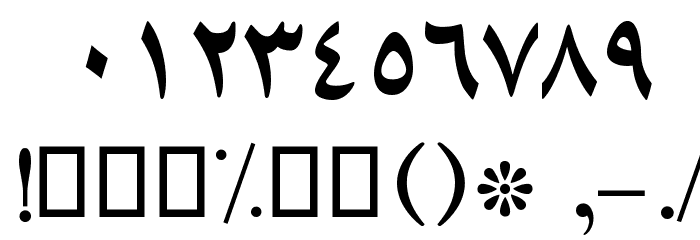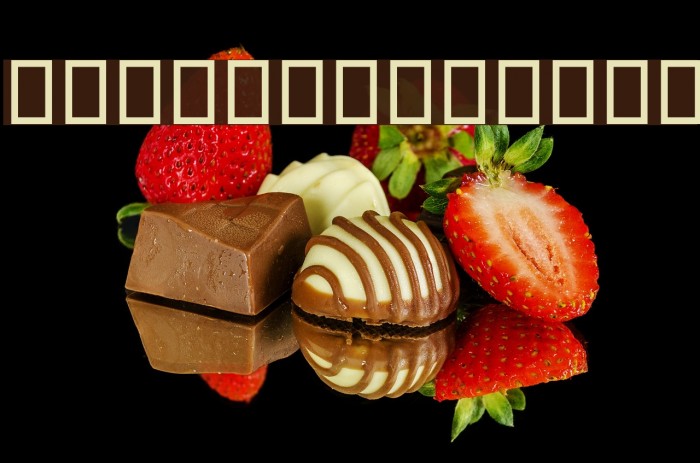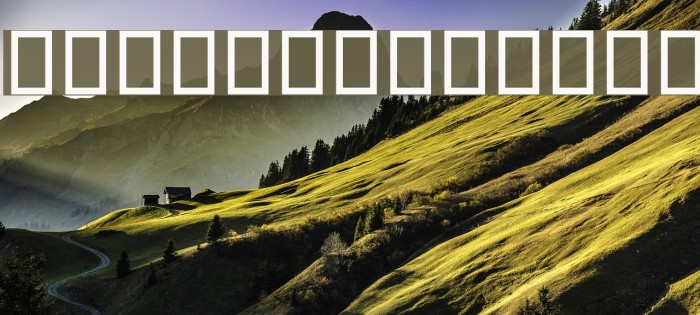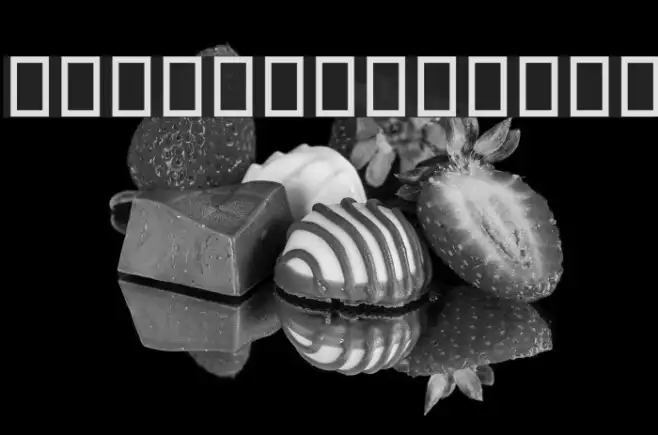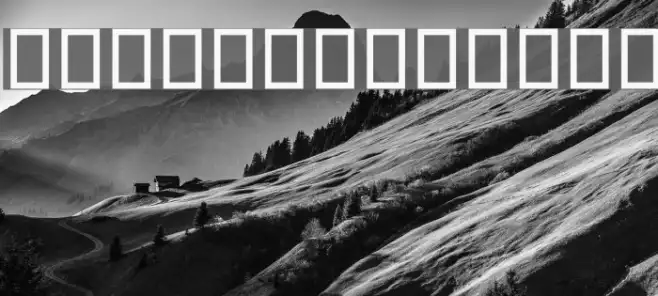
Lotus Bold Font
This font features a bold and dynamic style with a strong presence. The characters are designed with a smooth, flowing script that gives an elegant and sophisticated appearance. The numerals are distinct with a slightly playful curve, adding a unique touch to the overall design. Special characters are crafted with attention to detail, maintaining the font's cohesive aesthetic. This font is ideal for projects that require a touch of elegance and flair.
A bold, elegant script font with a dynamic and sophisticated style.
- Proposed Projects: Ideal for wedding invitations, luxury branding, elegant posters, and artistic logos.
- Category: Script
- Overall Style: Elegant
- Use Case: Logos, Invitations, Branding